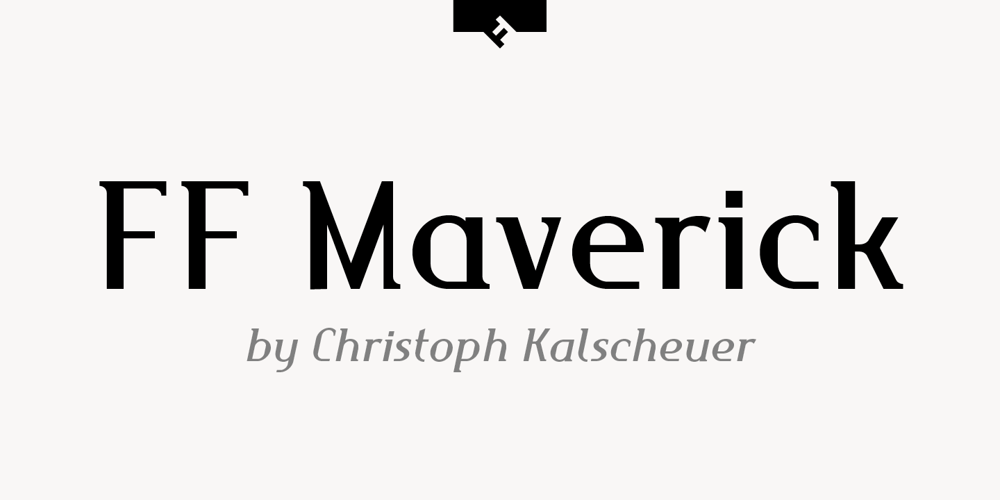
FF Maverick Font Family was designed by Christopher Kalscheuer and published by FontFont. FF Maverick contains 6 styles and family package options. German type designer Christoph Kalscheuer created this display FontFont in 1995. The family has 6 weights, ranging from Light to Bold (including italics) and is ideally suited for advertising and packaging, logo, branding and creative industries as well as sports. FF Maverick provides advanced typographical support with features such as alternate characters and case-sensitive forms. It comes with tabular lining and proportional lining figures.